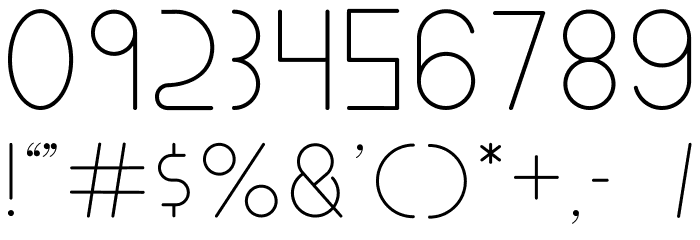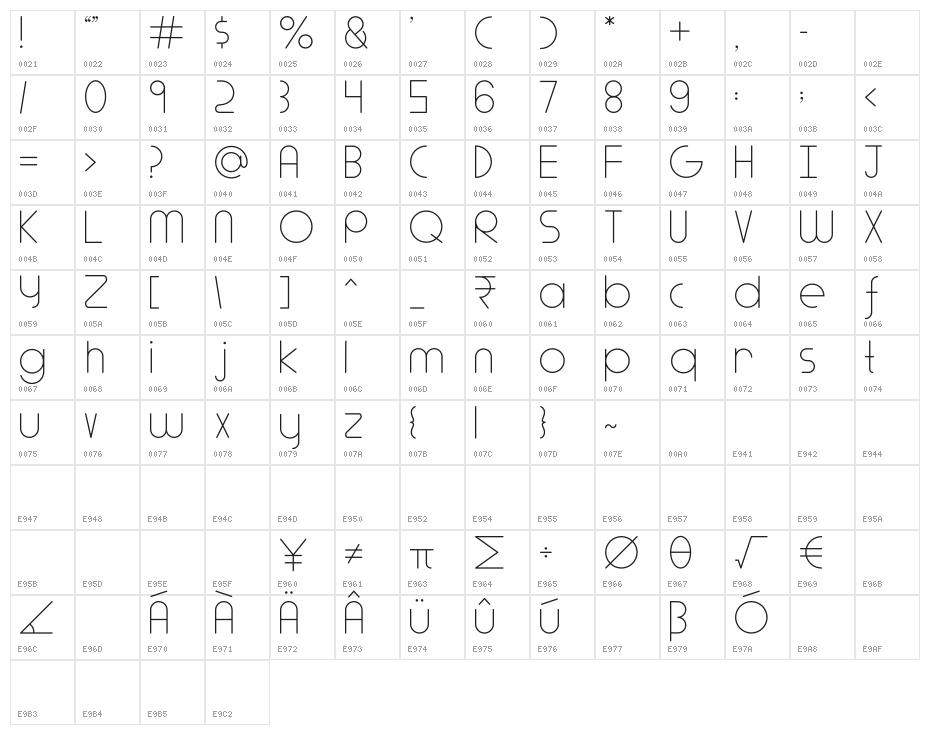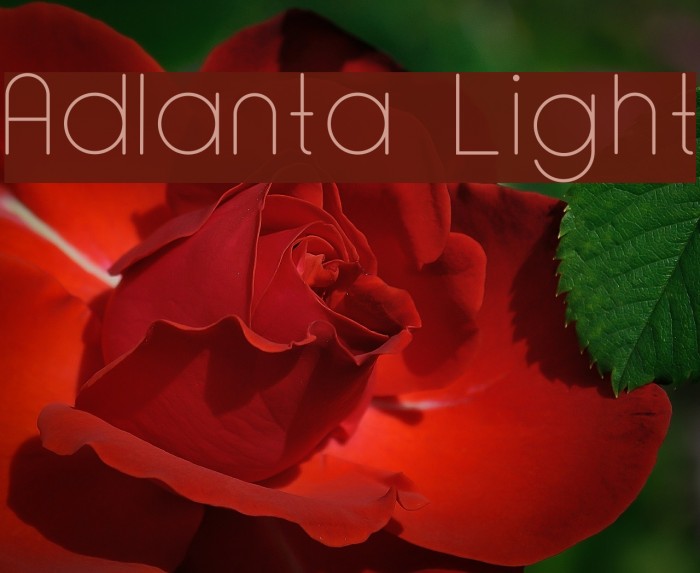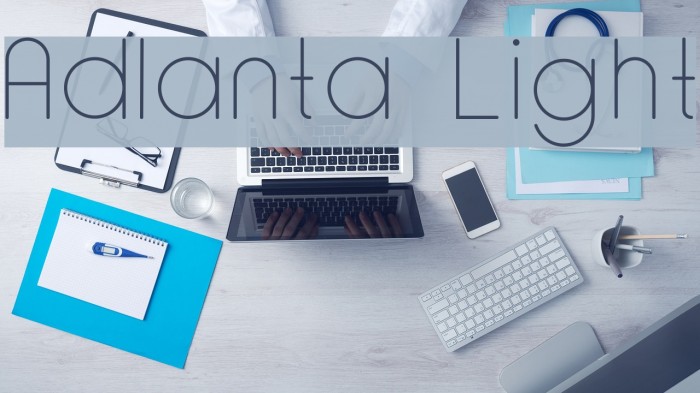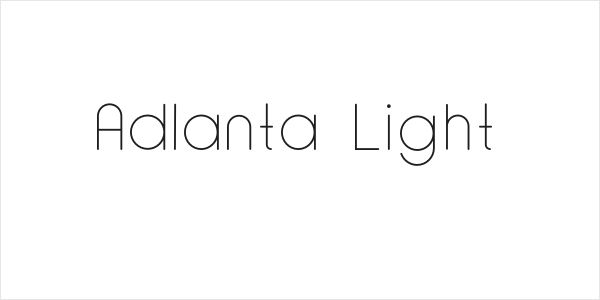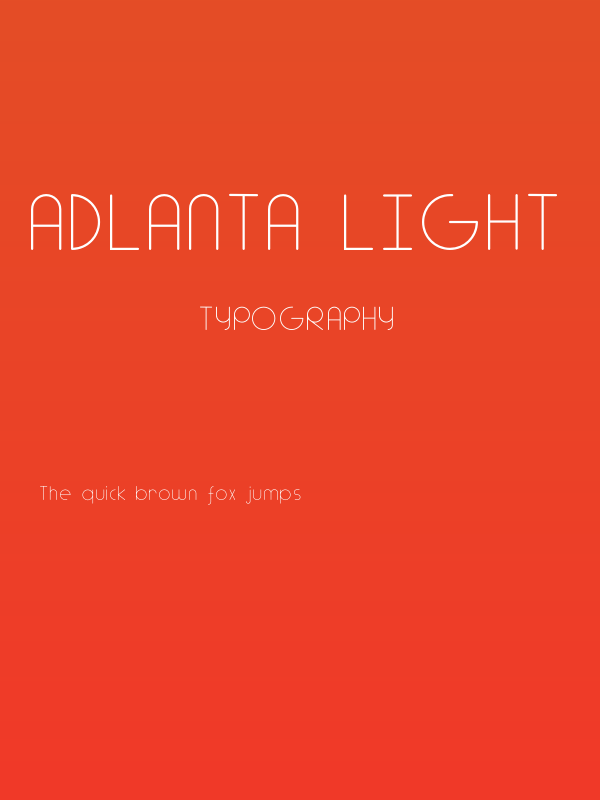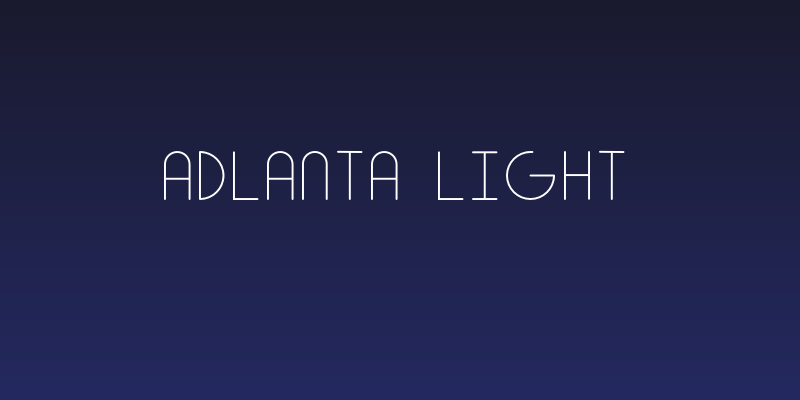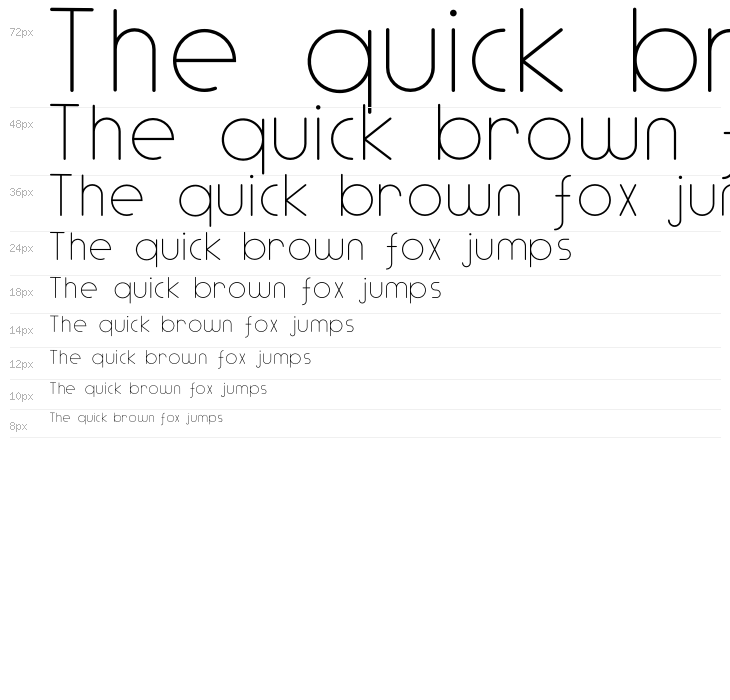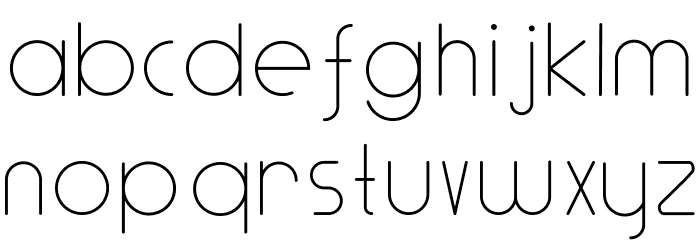
Adlanta Light Font
Adlanta Light Description
This font features a clean, geometric design with a modern aesthetic. The characters are composed of simple, rounded lines that create a sense of openness and clarity. The uppercase and lowercase letters maintain a consistent style, with uniform stroke widths and minimal contrast. The numerals are distinct and easy to read, while the special characters blend seamlessly with the overall design. This font's simplicity and elegance make it versatile for various applications.
| Proposed Projects | Ideal for branding, advertising, digital interfaces, and minimalist design projects. |